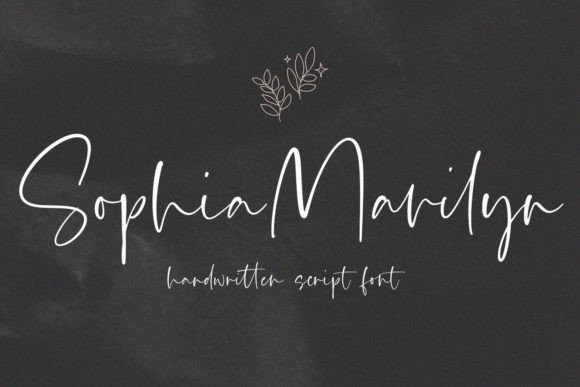
Introducing Sophia Marilyn Font - The Enchanting Script Font That Will Captivate Your Designs!
Journey into the world of timeless elegance and sophistication with Sophia Marilyn, a meticulously crafted handwritten script font that oozes charm and personality. Step into a realm where words dance with grace, leaving an indelible mark on every design you create.
With its flowing strokes and delicate curves, Sophia Marilyn effortlessly adds a touch of magic to your creations. Whether you're designing wedding invitations, branding projects, or simply adding a personal touch to your social media posts, this font is sure to leave a lasting impression.
Beyond its aesthetic appeal, Sophia Marilyn is also incredibly versatile, adapting seamlessly to a wide range of projects. From product packaging to magazine layouts, this font has the power to elevate your designs and make them stand out from the crowd.
But what truly sets Sophia Marilyn apart is its ability to evoke emotions. Each letter, each word, each line crafted with care conveys a sense of warmth, love, and joy. It's a font that speaks to the heart, leaving an imprint that lingers long after the design is complete.
So, embark on a creative journey with Sophia Marilyn and let your designs bloom with elegance, charm, and heartfelt emotions. Discover the endless possibilities that await you as you unleash the power of this extraordinary script font.